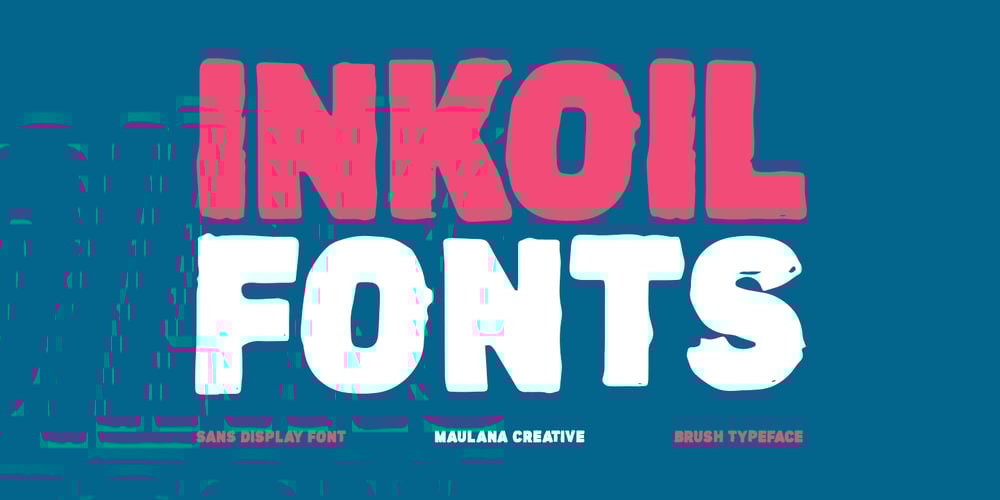
MC Inkoil Font Family was designed by Gilang Maulana and published by Maulana Creative. MC Inkoil contains 1 styles and family package options. Inkoil is a handmade sans font. Heavy stroke, fun character with a bit of ligatures. To give you an extra creative work. Inkoil handmade sans font support multilingual more than 100+ language. This font is good for logo design, Social media, Movie Titles, Books Titles, a short text even a long text letter and good for your secondary text font with script or serif. Make a stunning work with Inkoil font.